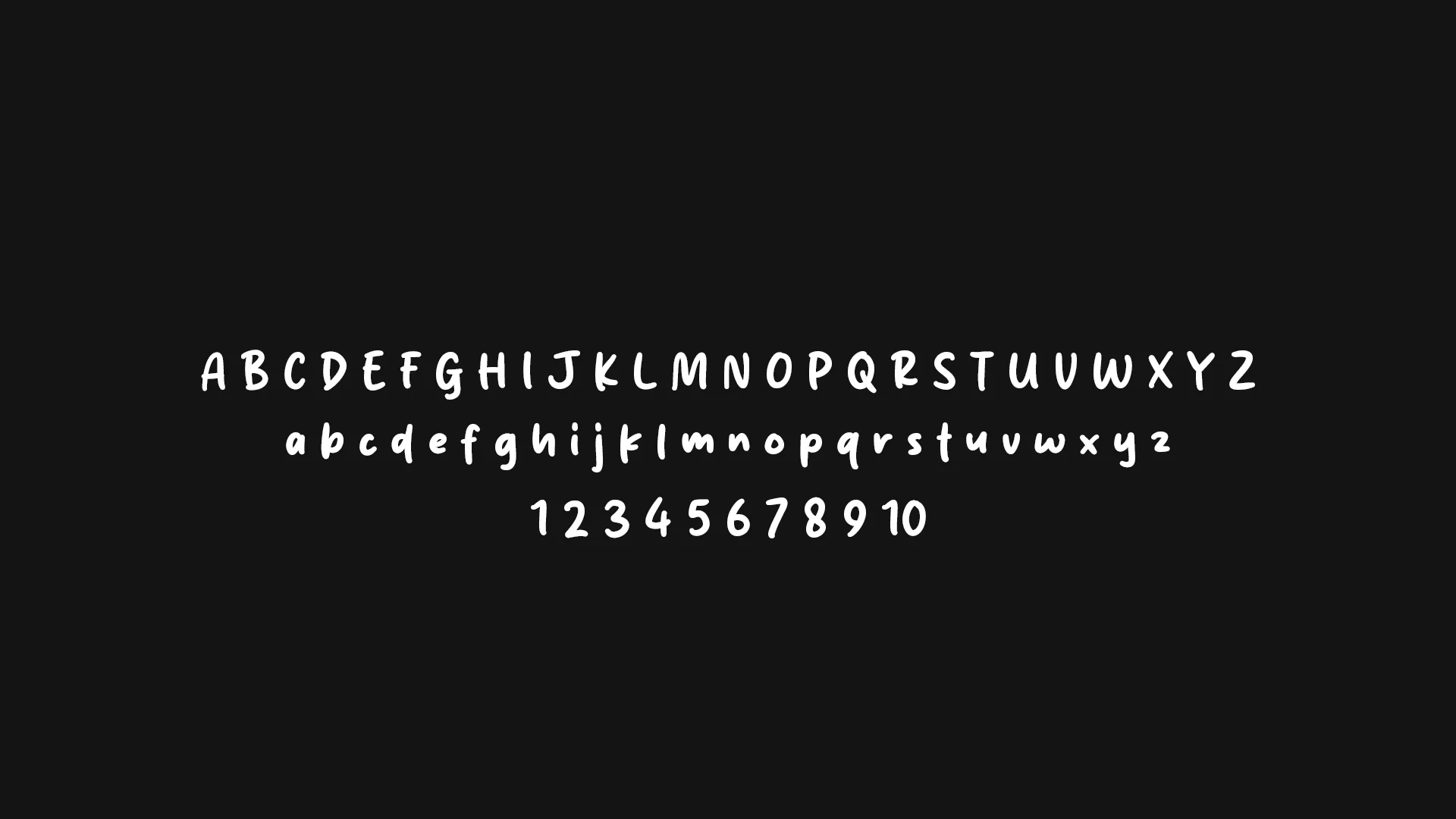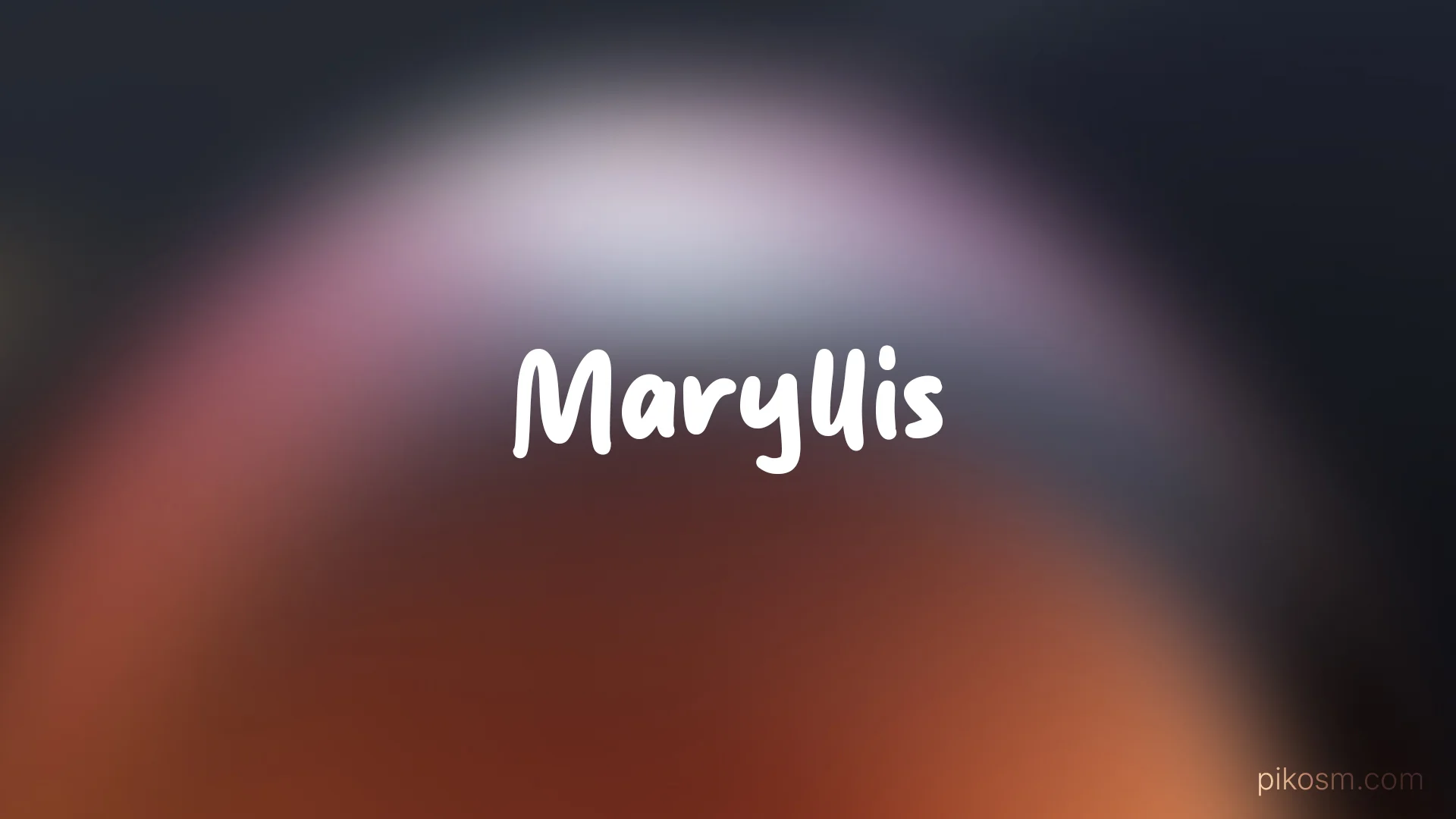
The Maryllis Font is an elegant handwriting font that brings sophistication and charm to any design. Perfect for branding, wedding invitations, social media graphics, and creative projects, it adds a personal and stylish touch to your work.
FEATURES
• Uppercase and Lowercase letters
• Numbering and Punctuations
• Multilingual Support